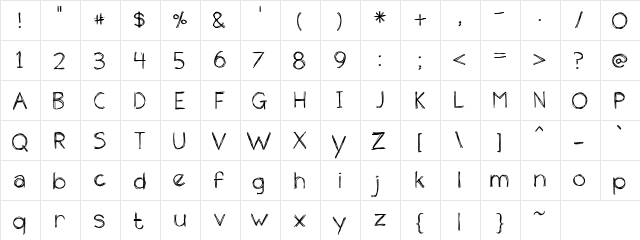
the unseen Regular
| Foundry | Brittney Murphy |
| Designer | Brittney Murphy |
Design Context for the unseen Typeface
the unseen is a composed and adaptable typeface that performs quietly and consistently across a wide range of design contexts.